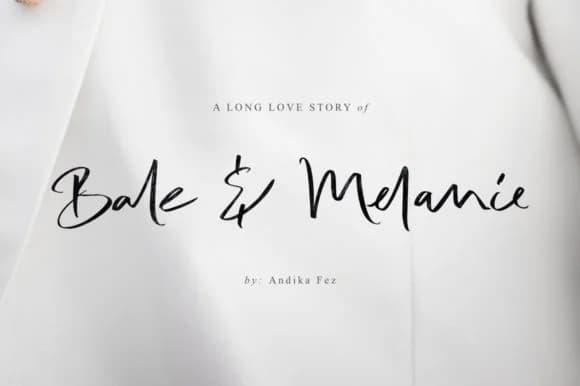
Quick Dream Font by andikafez is a hand-lettered script that brings warmth and personality to any design project. This typeface combines organic, flowing letterforms with consistent letter spacing, creating a typeface that feels both approachable and polished. The natural, rhythmic curves of each character give it a distinctly human quality that appeals to designers seeking authenticity in their work.
The friendly nature of Quick Dream makes it ideal for a range of creative applications. Consider using it for wedding invitation suites where the casual elegance suits modern celebrations, or for hand-lettered product labels on artisanal goods and small-batch items. It works beautifully on greeting card designs, especially for milestone announcements and personal messages. The typeface also performs well in packaging design for boutique cosmetics or craft items, where a personal touch differentiates products from mass-market alternatives.
Quick Dream Font is a script font that shines as a display or heading face. Pair it with a clean sans-serif or serif font for body text β the contrast creates a clear hierarchy while the two styles stay balanced and easy to read.